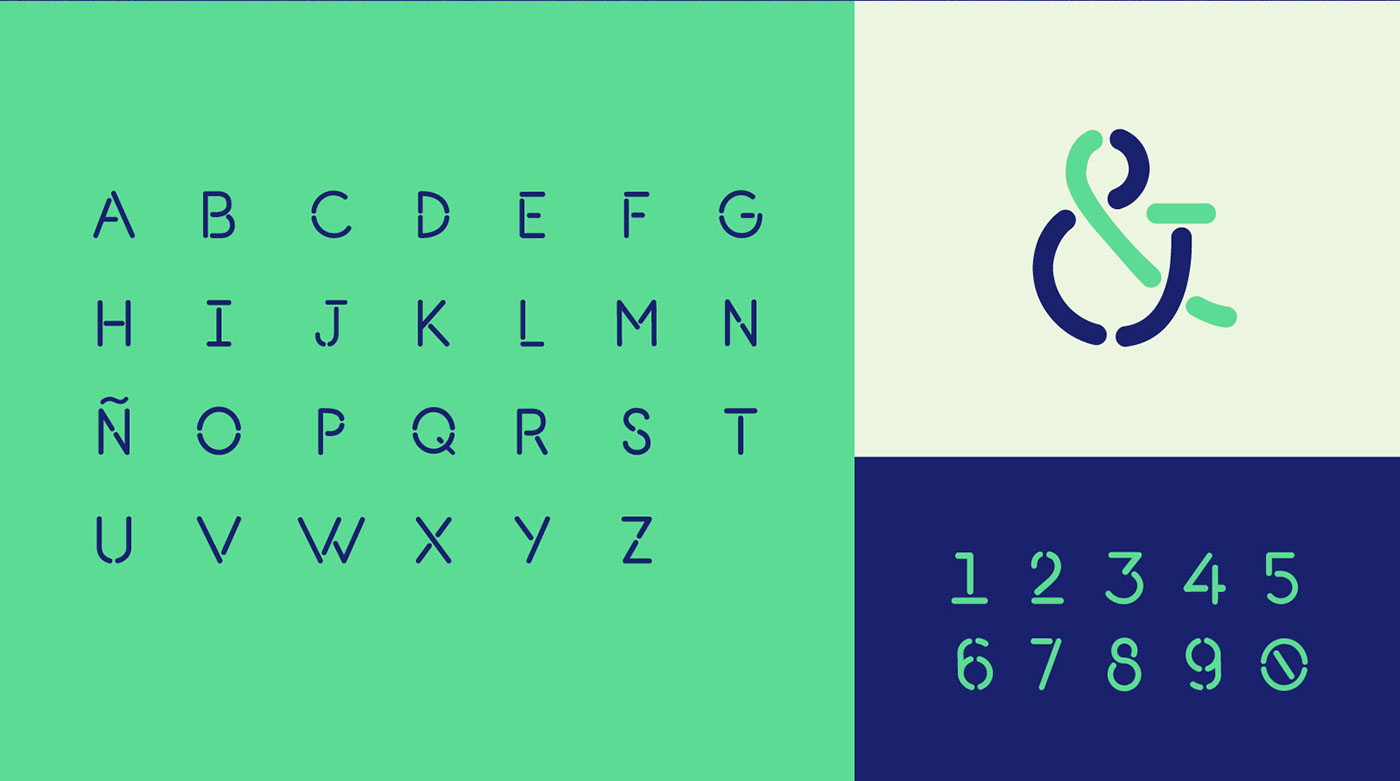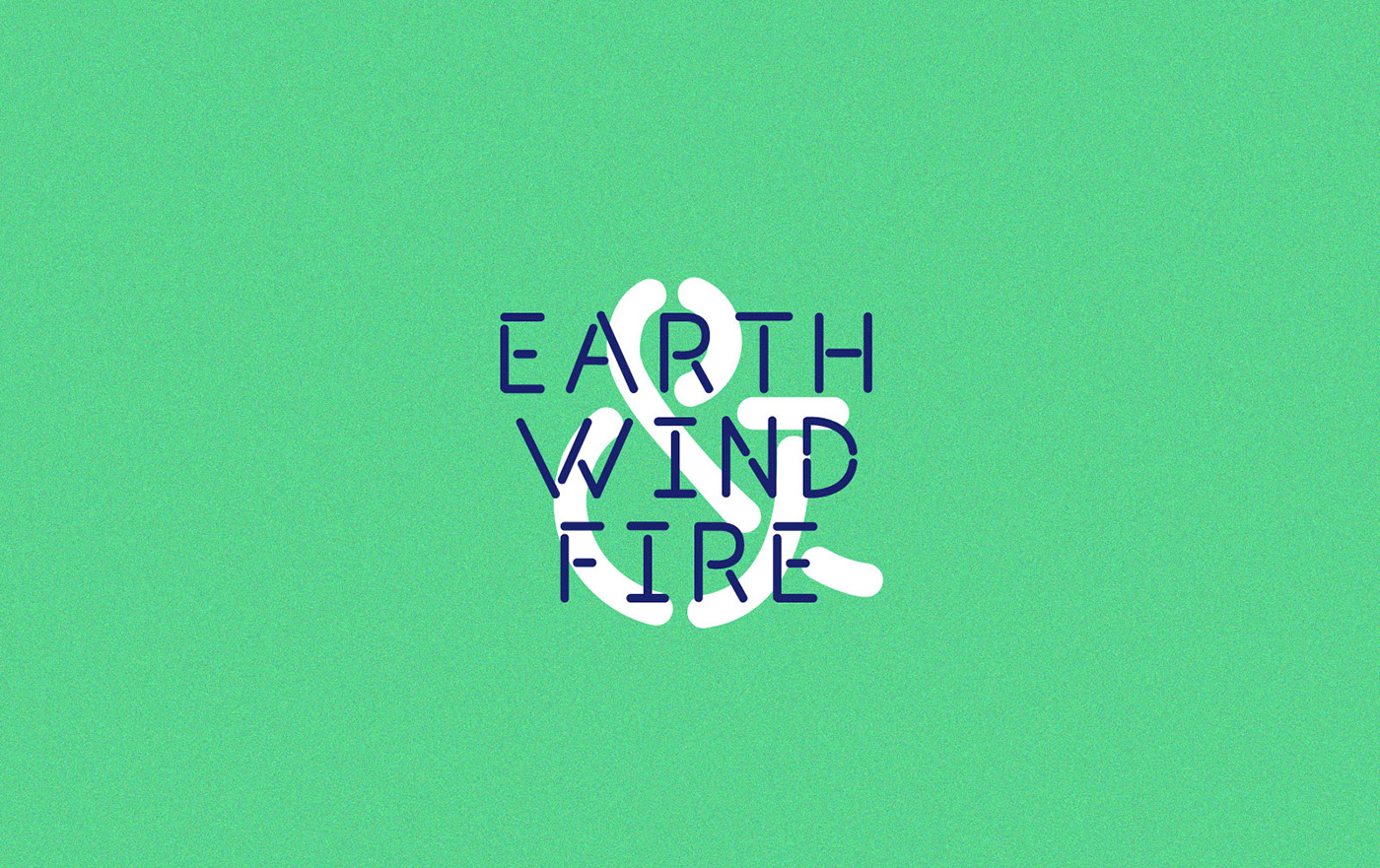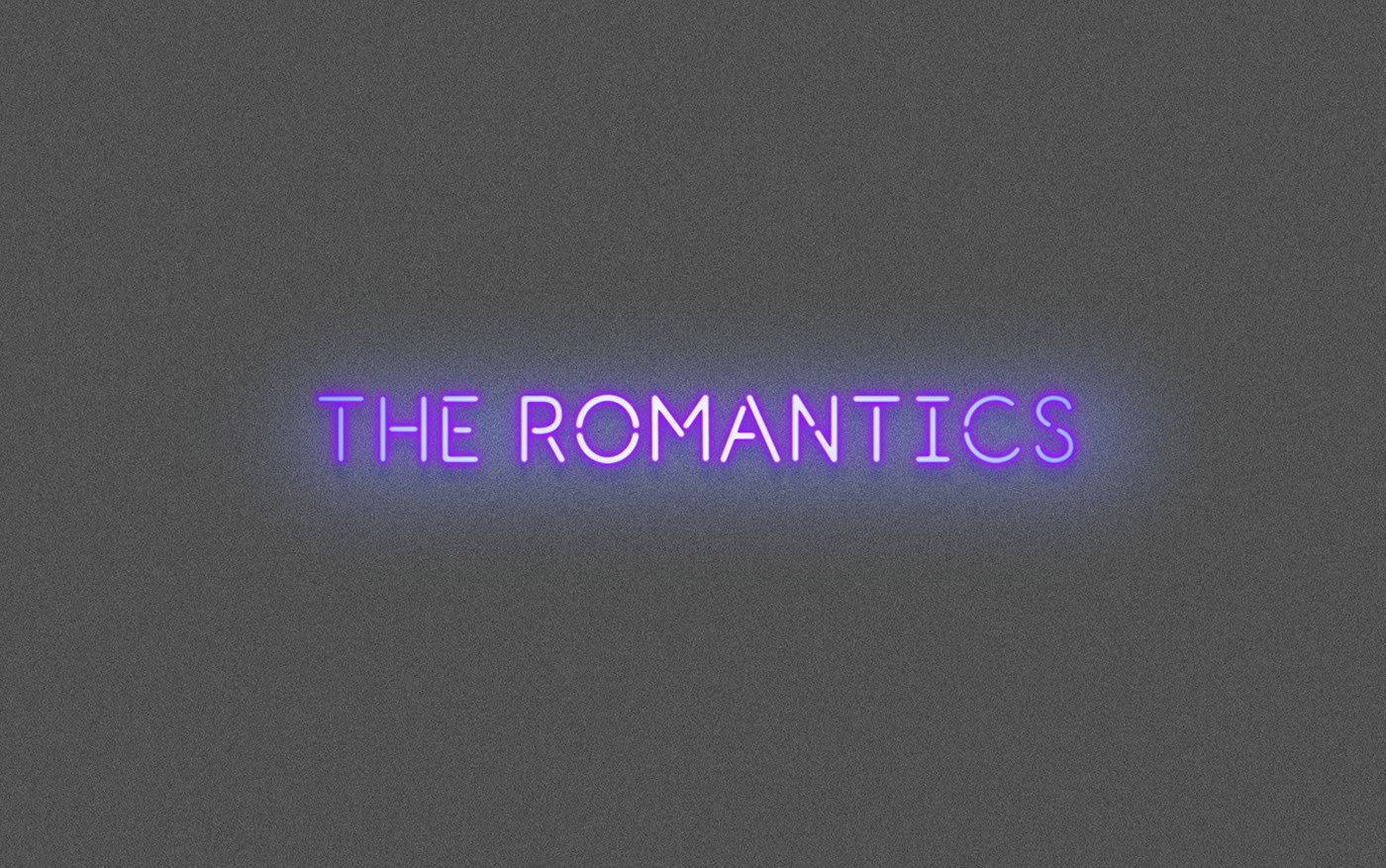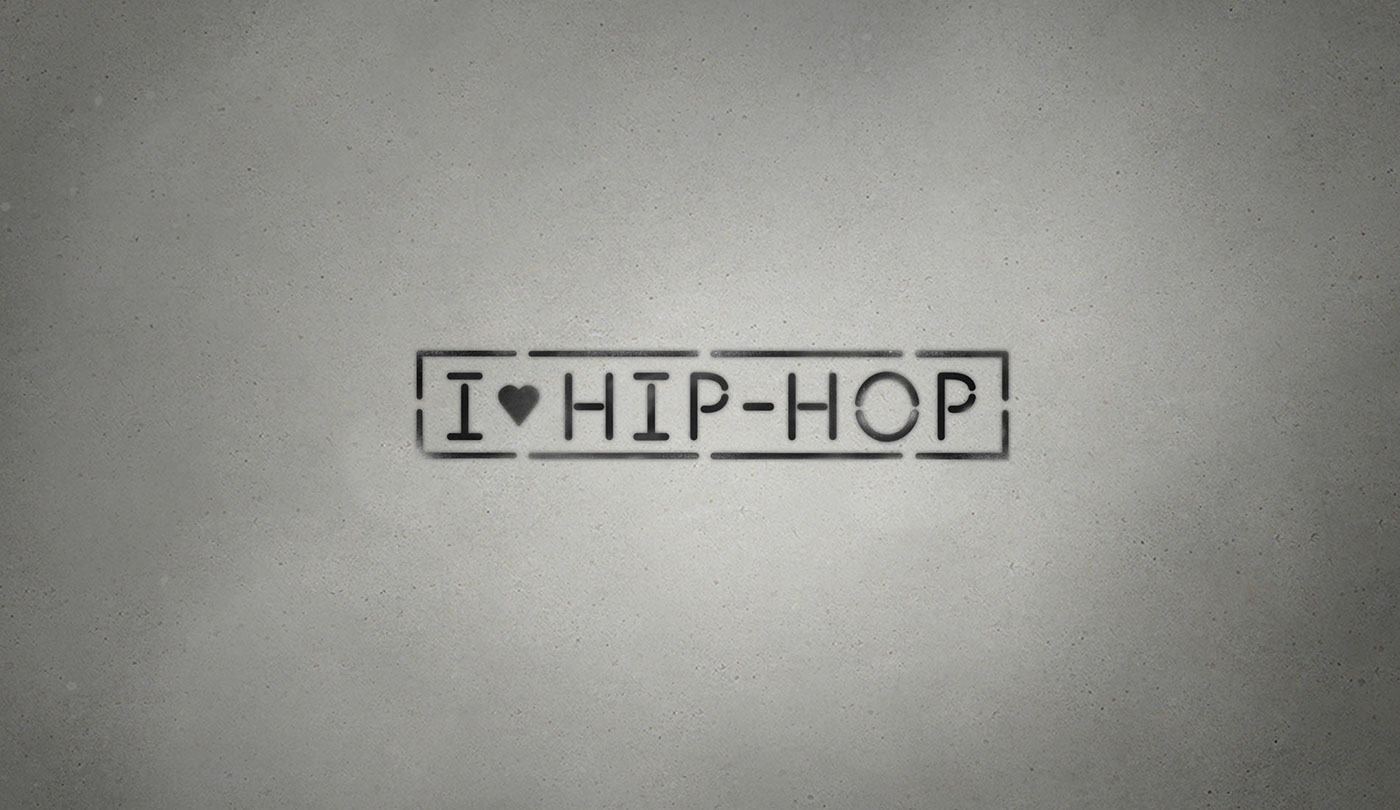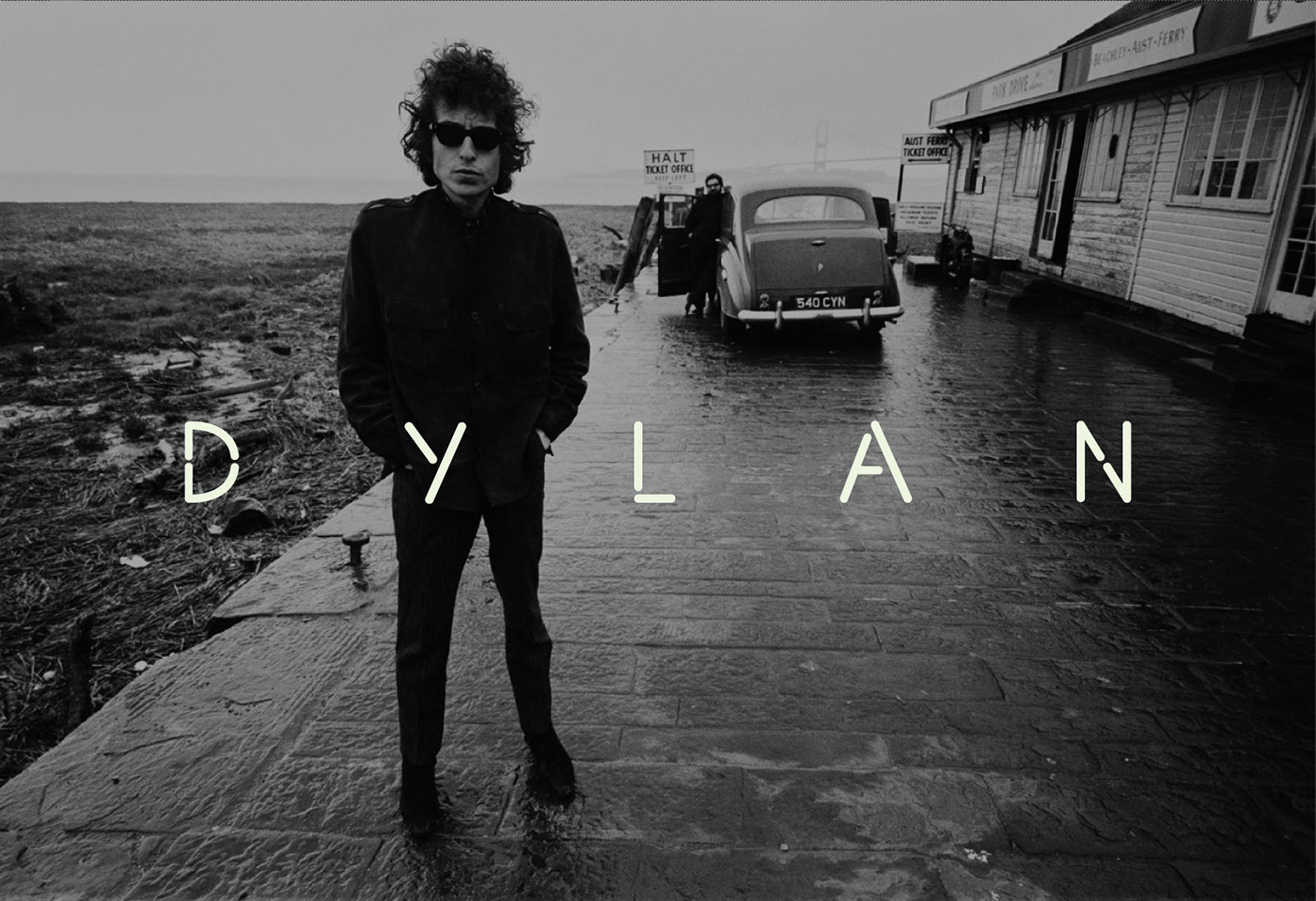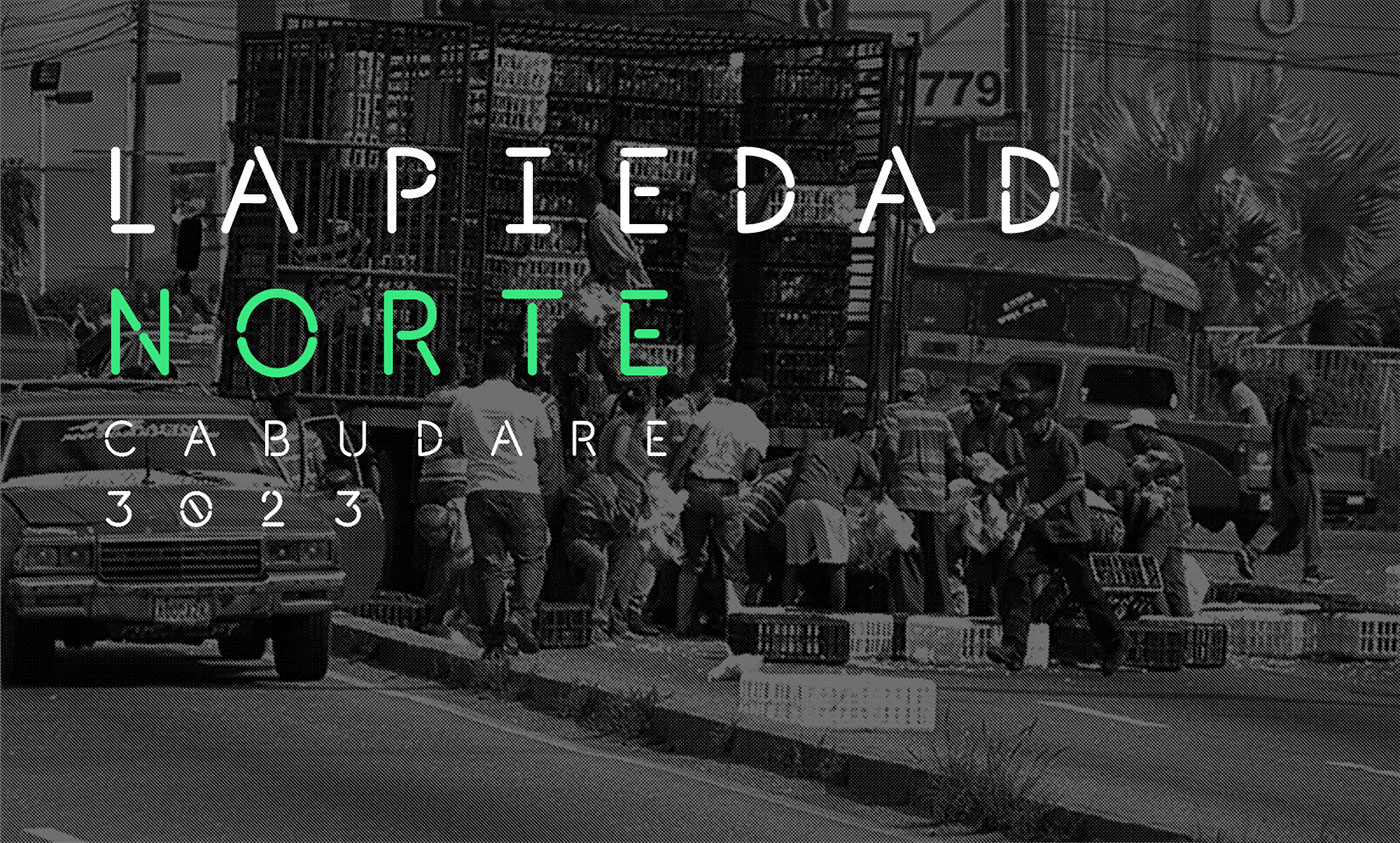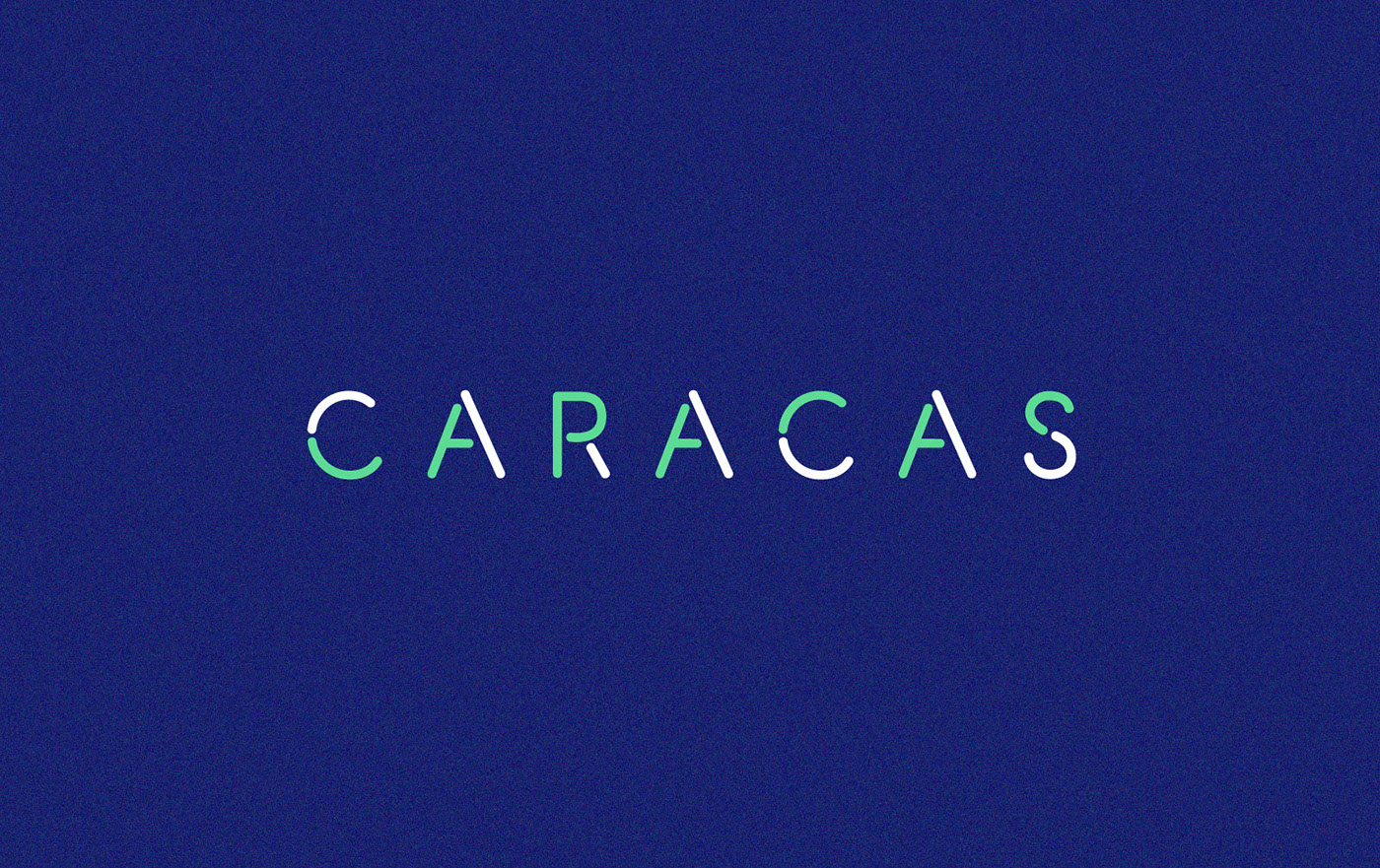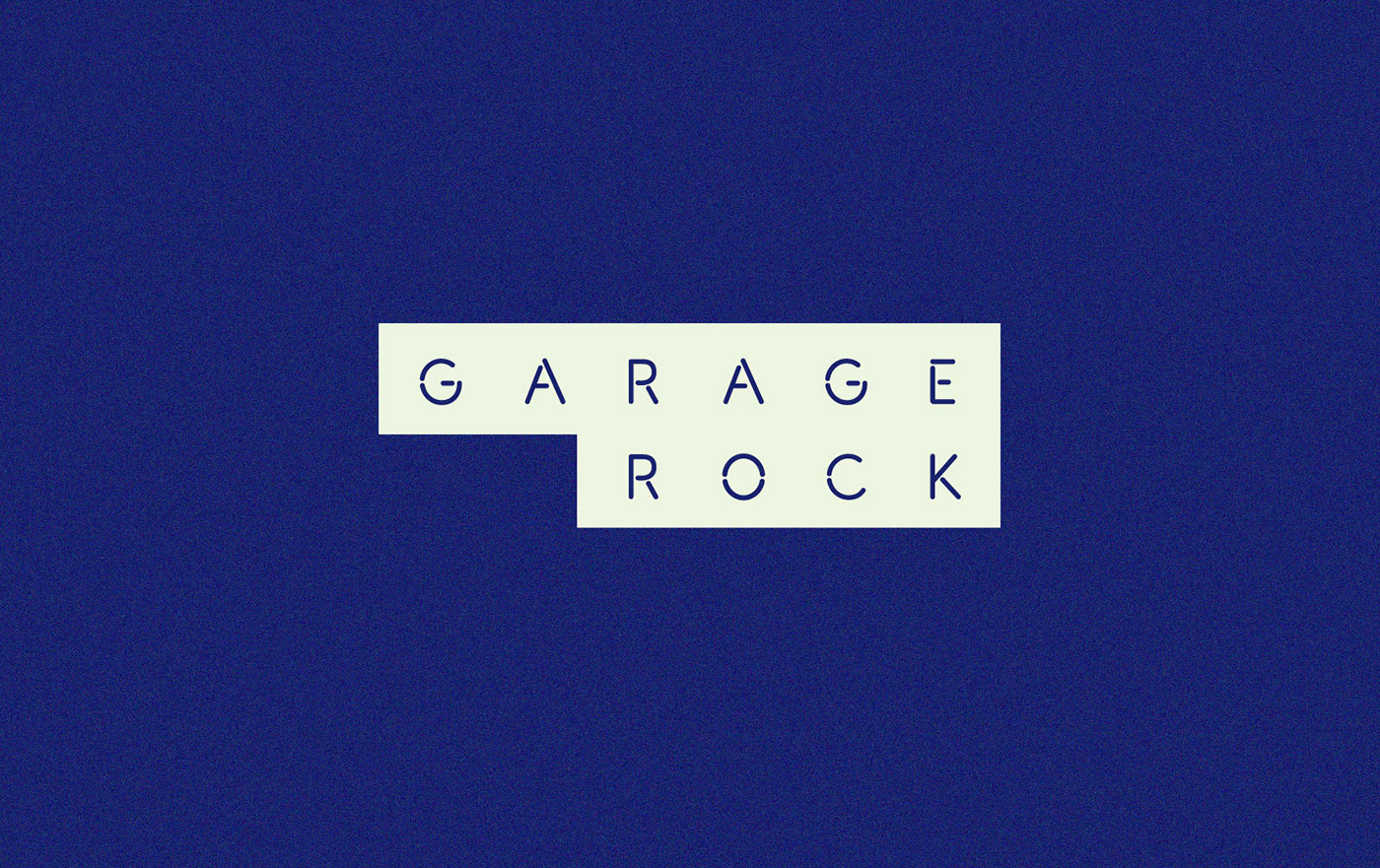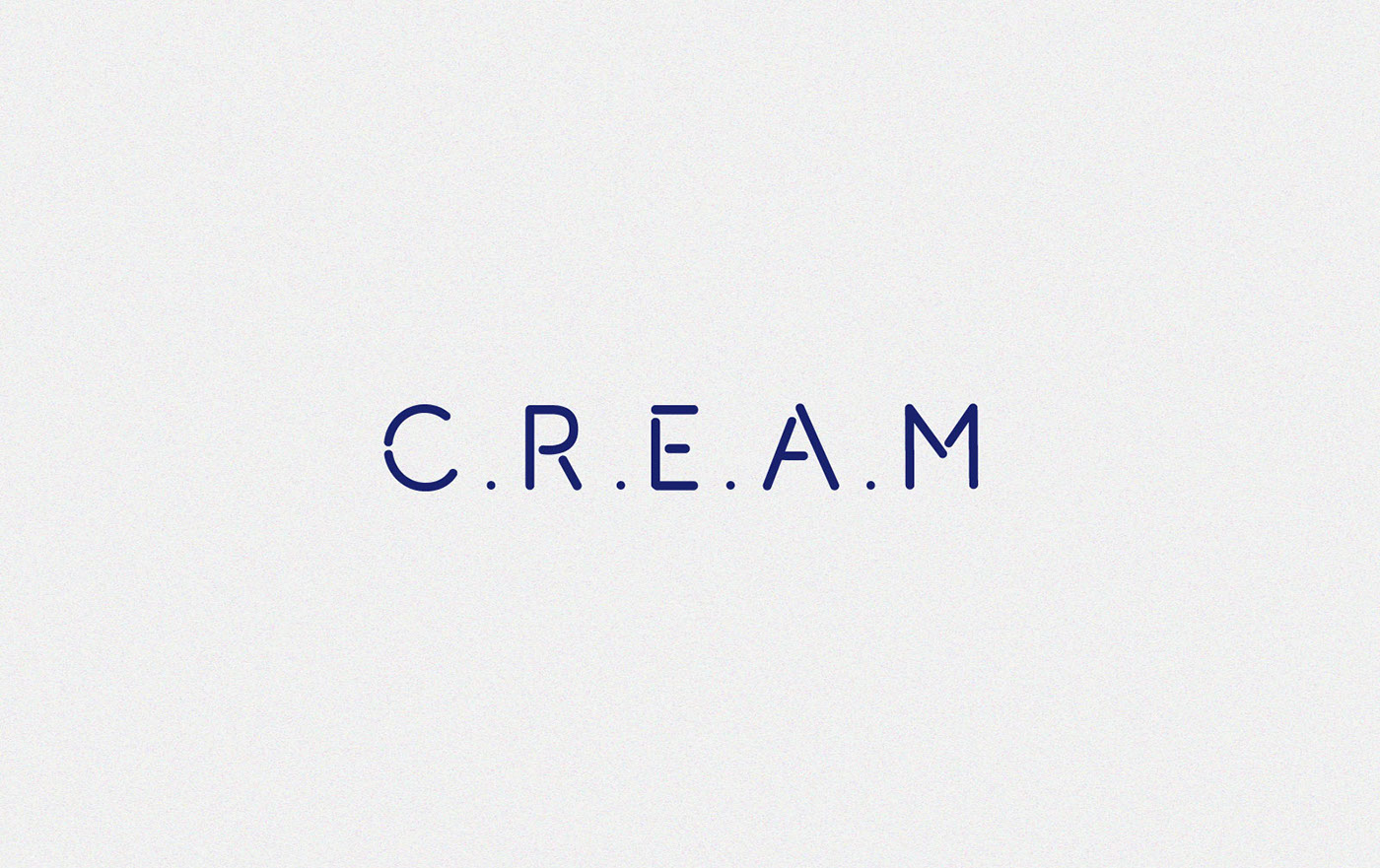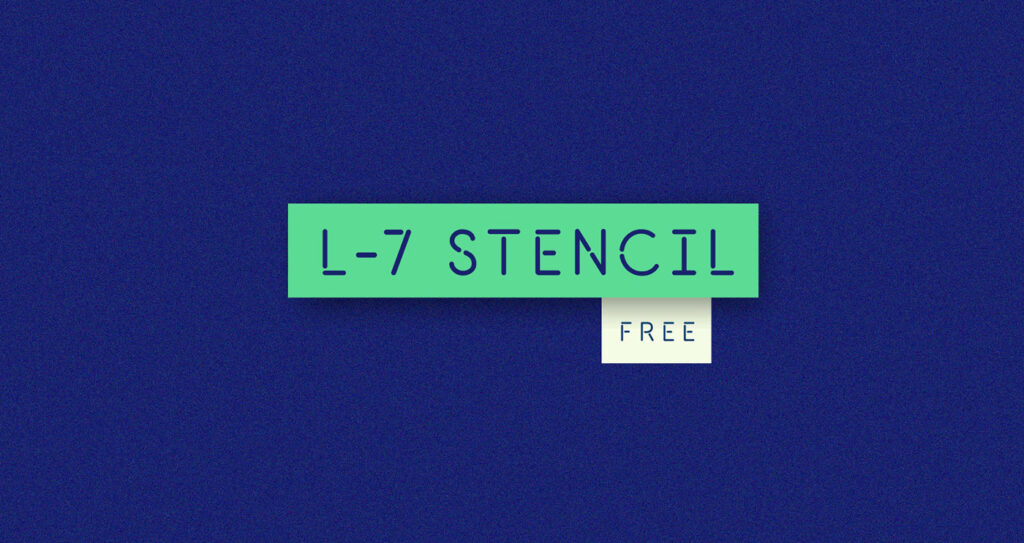
L-7 Stencil Typeface was created by Luis Calzadilla from Barquisimeto, Venezuela. Whether you’re whipping up logos, posters or T-shirts, L-7 Stencil is one beautiful font you can count on!